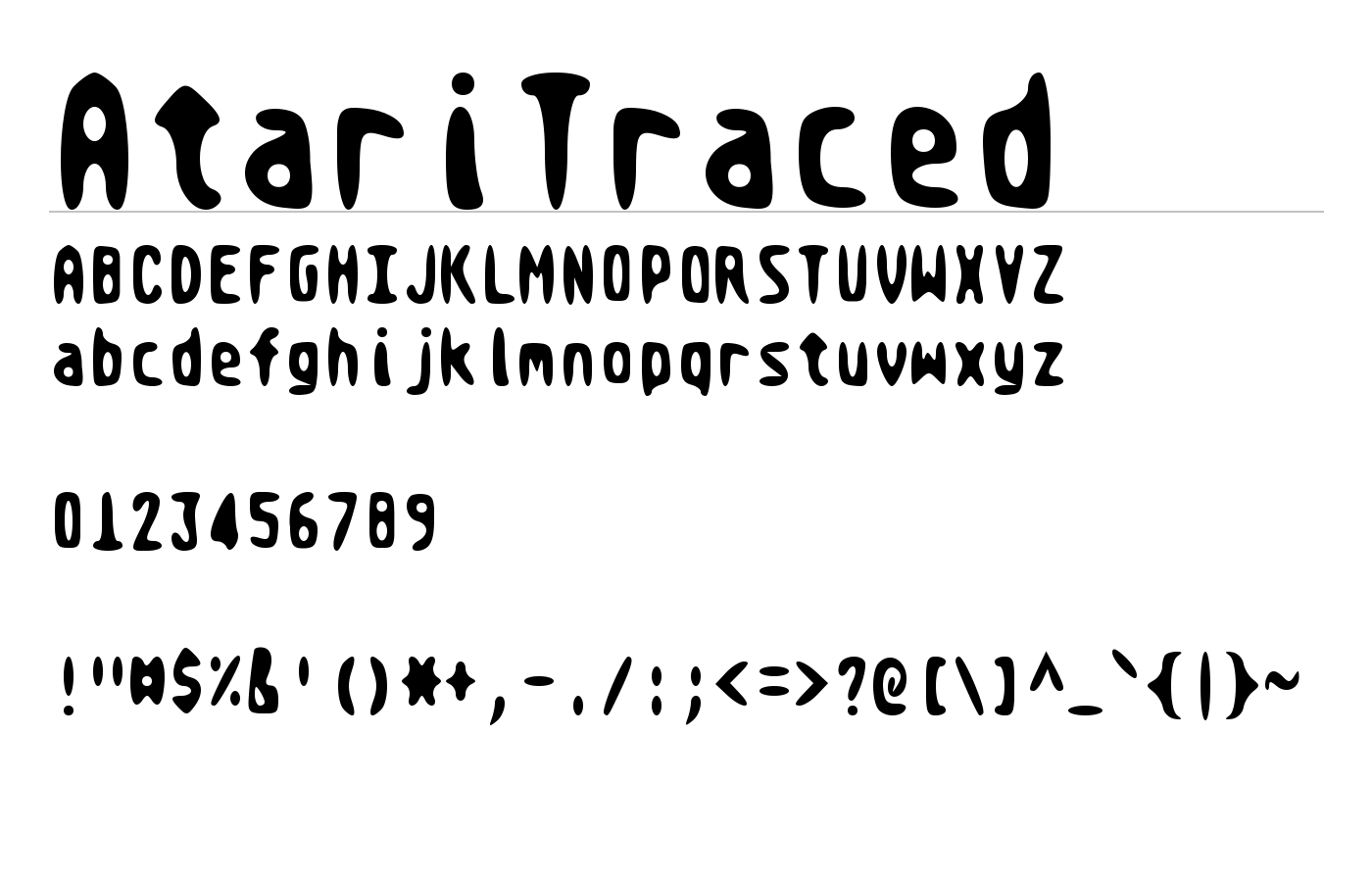
AtariTraced is a playful and bold sans serif font with rounded, organic shapes and uneven stroke widths that give it a quirky, hand-drawn feel. Its distinct letterforms, with high x-height and unique character details, make it ideal for fun, creative projects, retro-inspired designs, and headlines that need to capture attention with a friendly, informal vibe. This font works great for branding, posters, and displays where a lively and approachable personality is desired.
AtariTraced Font
About AtariTraced Font